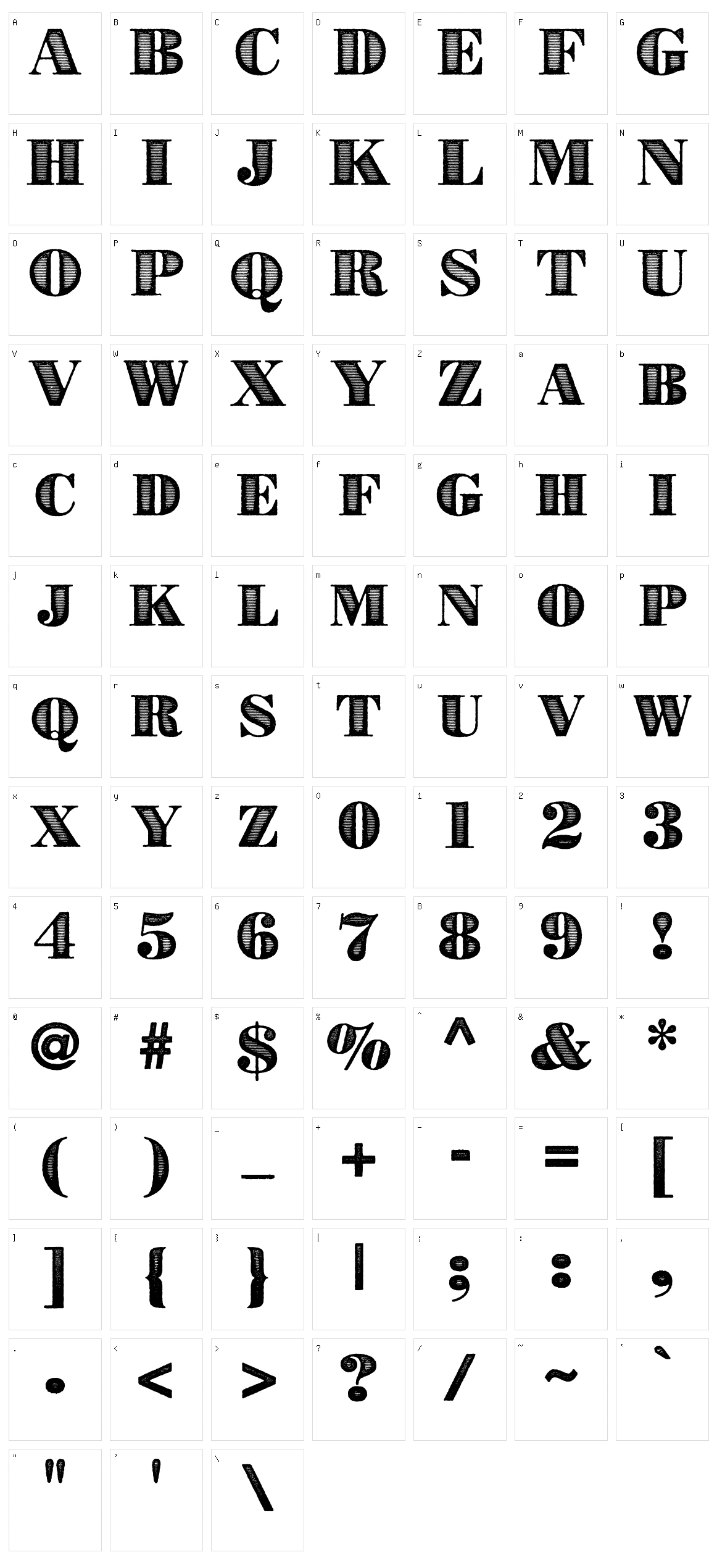
BAD GUY BLACK
A Font by S. John Ross
I've made a lot of stress fonts, but BAD GUY BLACK is about more than stress, it's about age. This came after a bout of Fly From Evil research, staring at quite a lot of nearly-a-century old documents, and trying to isolate what, graphically, made a font feel not only stressed, but actually old. I think it came out pretty well; hope you like it!